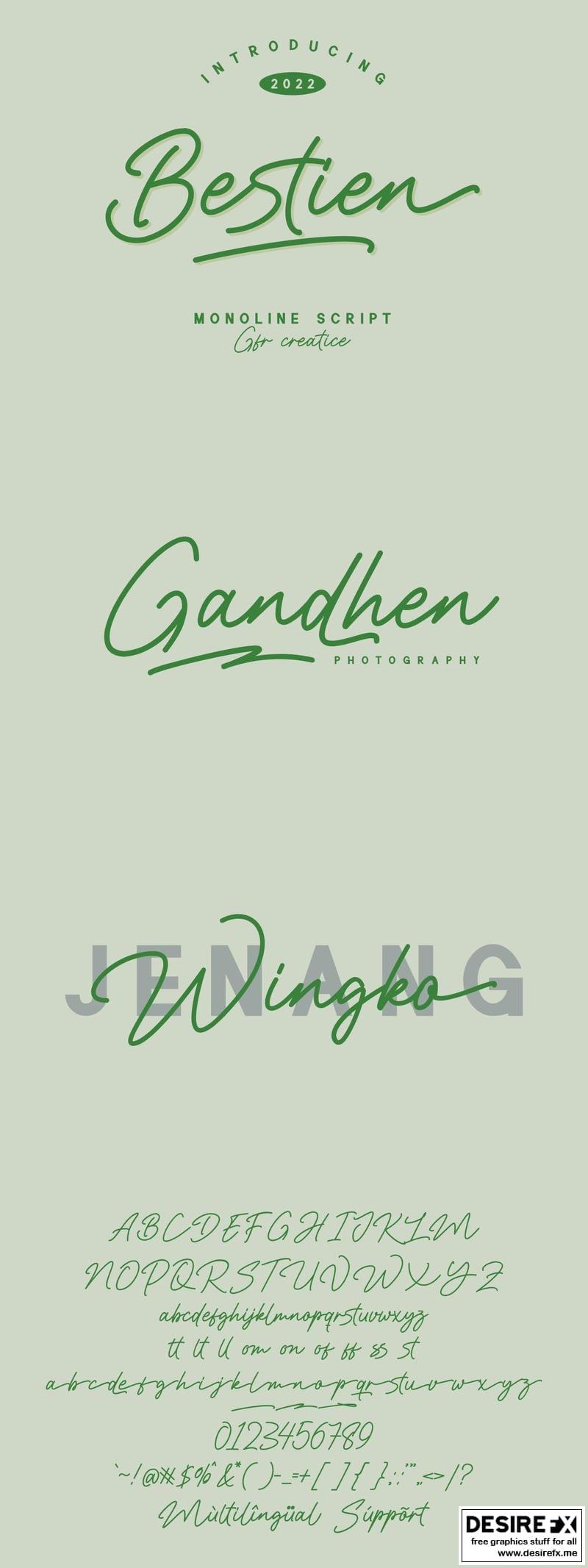
Bestien 598TYSY
Bestien is a monoline Script font
This font is perfect for use in your design projects. for all types of logos, photography, wedding invitations, advertisements, and projects that require monoline Script fonts